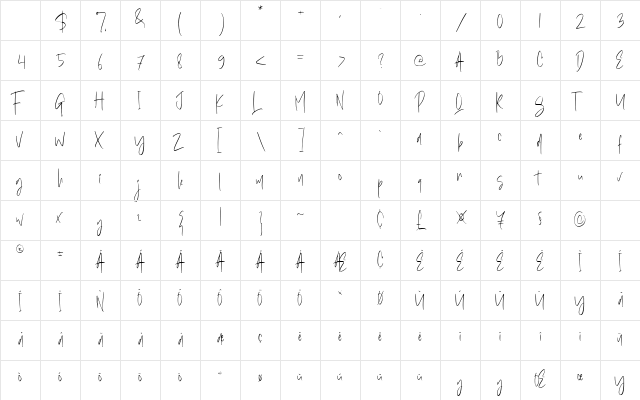
Complete Arrival Of Companies Regular glyph index. Displaying only characters natively supported by Arrival Of Companies Regular font.
Arrival Of Companies is a composed and adaptable typeface that performs quietly and consistently across a wide range of design contexts.